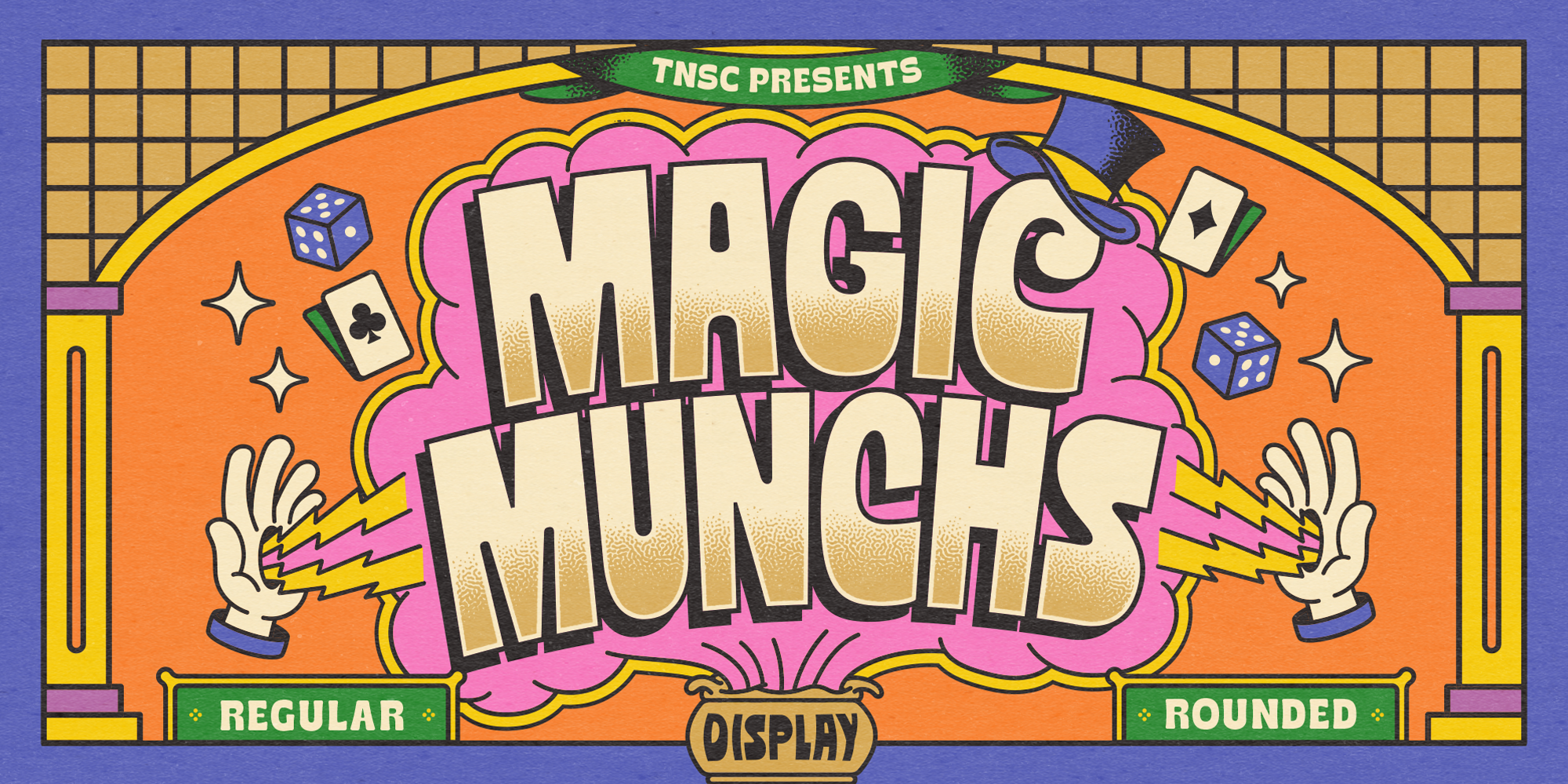
If you're looking for a fun, playful typeface with a whimsical vibe, Magic Munchs Font Free Download is the perfect choice for your creative projects. This delightful font features quirky, rounded letterforms with a cheerful, cartoon-inspired style, making it ideal for children’s books, birthday invitations, posters, logos, packaging, and branding that needs a joyful, lighthearted touch. Its lively personality adds instant charm and excitement to any design.
Magic Munchs Font balances playfulness with readability, offering versatility across both print and digital platforms. It includes multilingual support and a range of characters, giving designers flexibility to craft unique and engaging typography. Whether you’re designing for a kid-friendly brand or creating fun promotional materials, this font brings energy and happiness to your work.